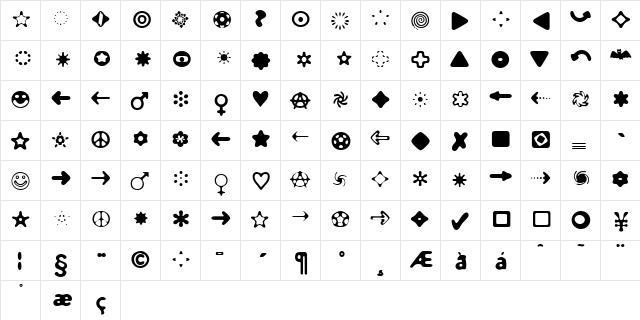
Distro II Bats Bats
| Designer | Peter A Designer |
Design Context for Distro II Bats Typeface
Distro II Bats takes a measured approach to typography — its balanced proportions and neutral character make it a reliable workhorse for both digital and print work.